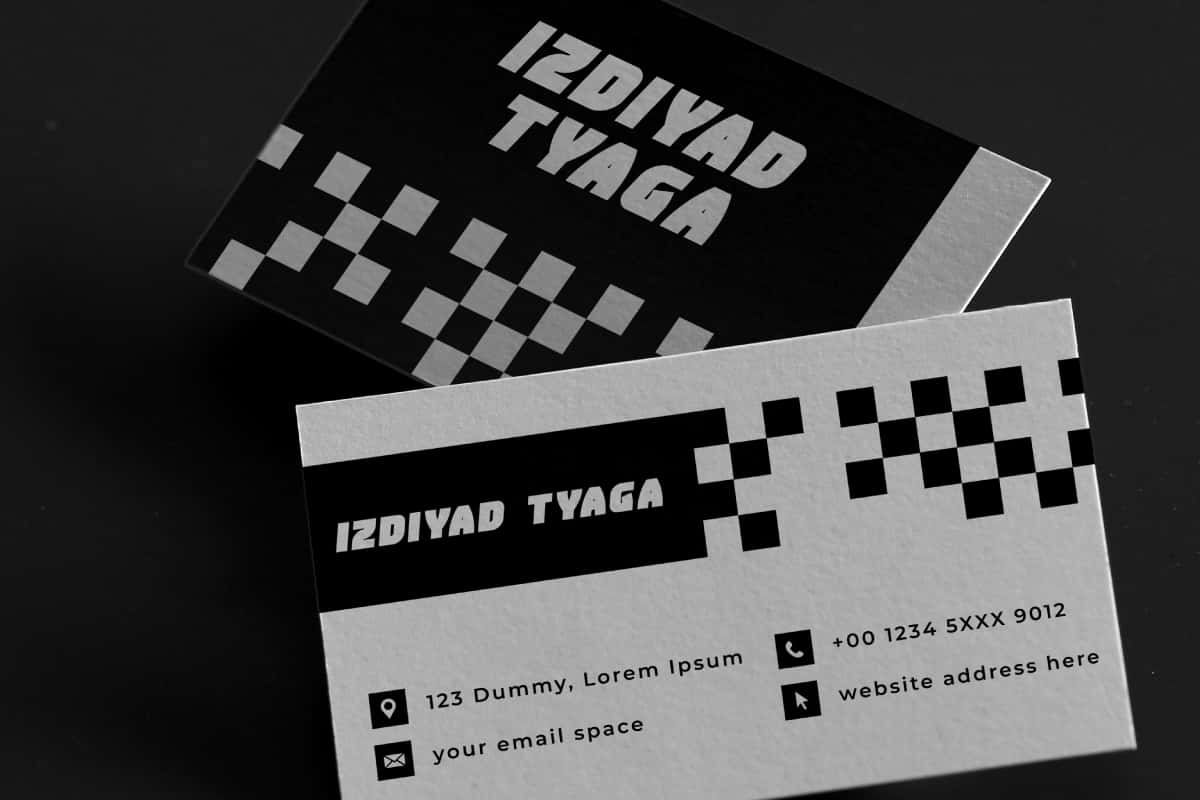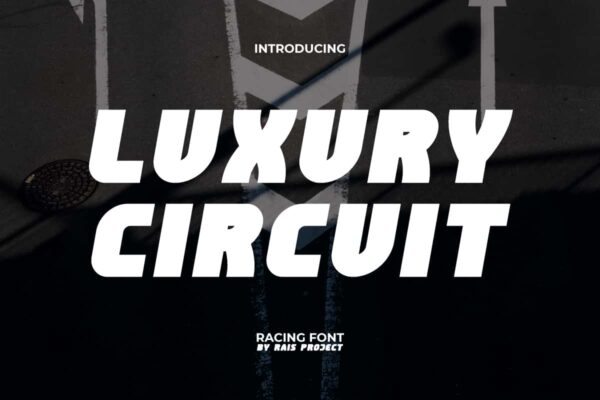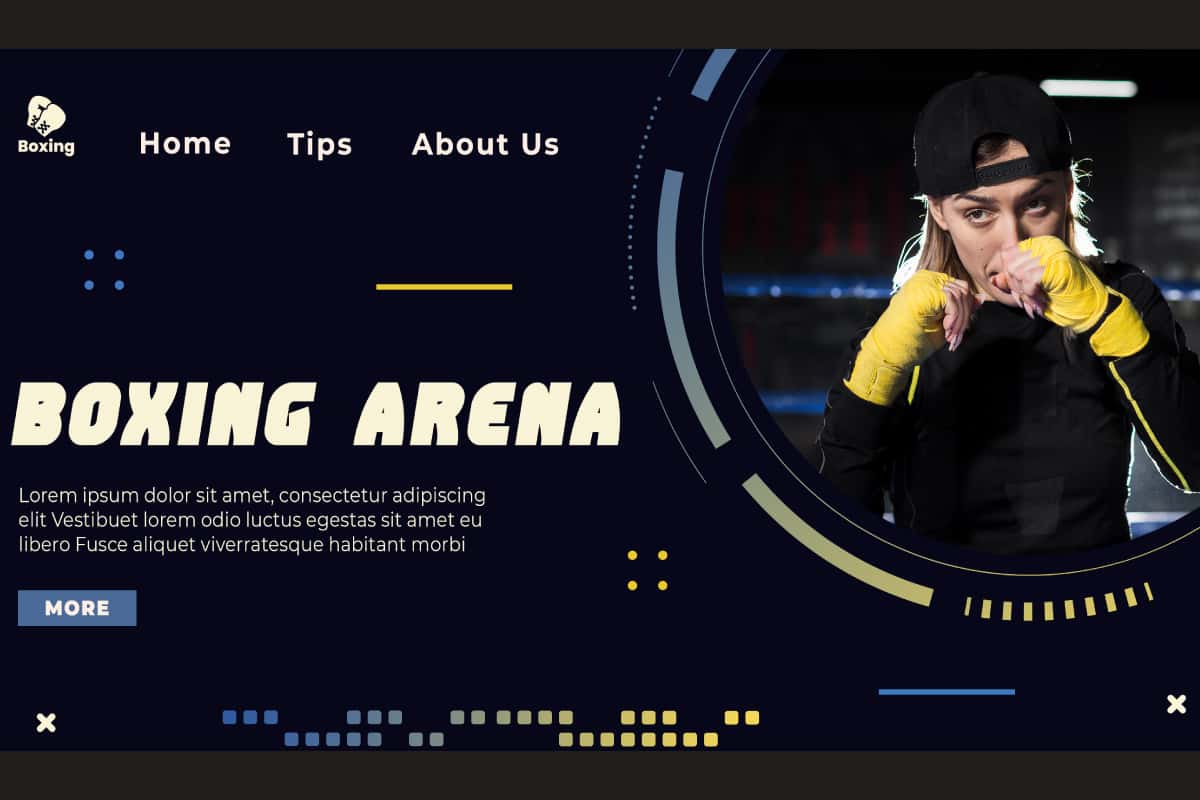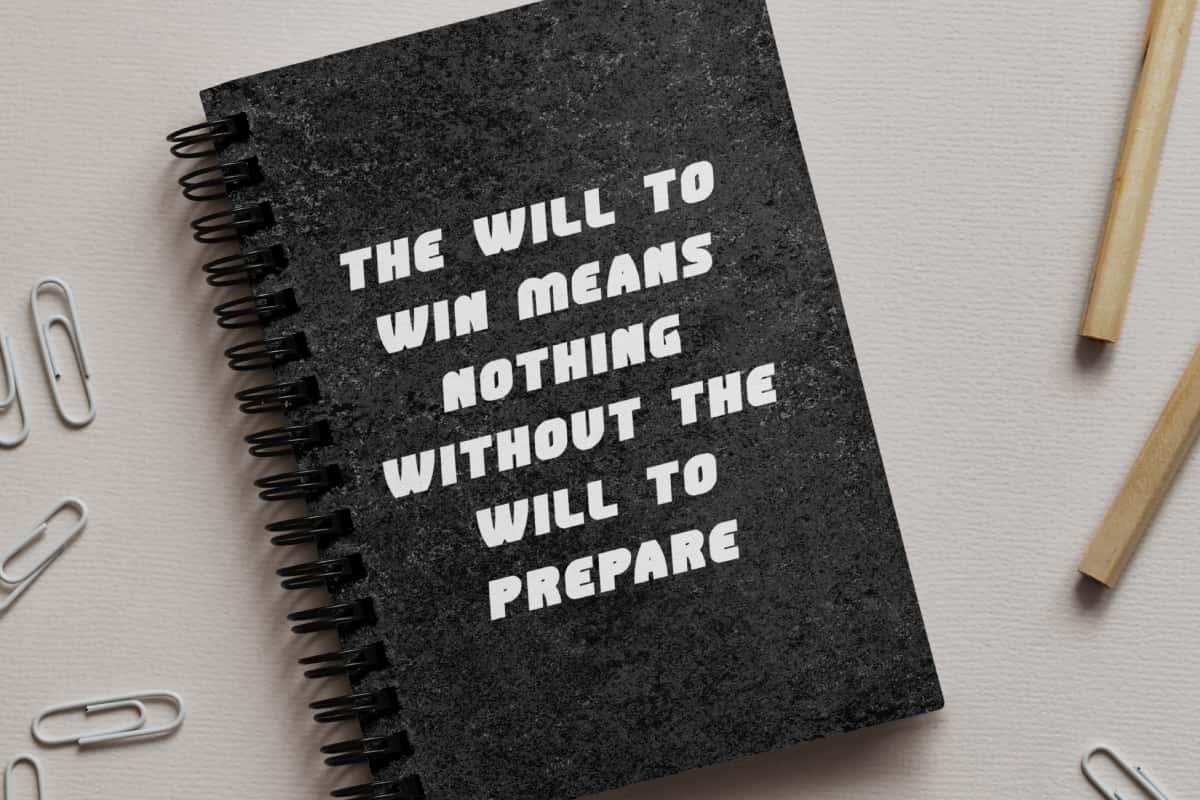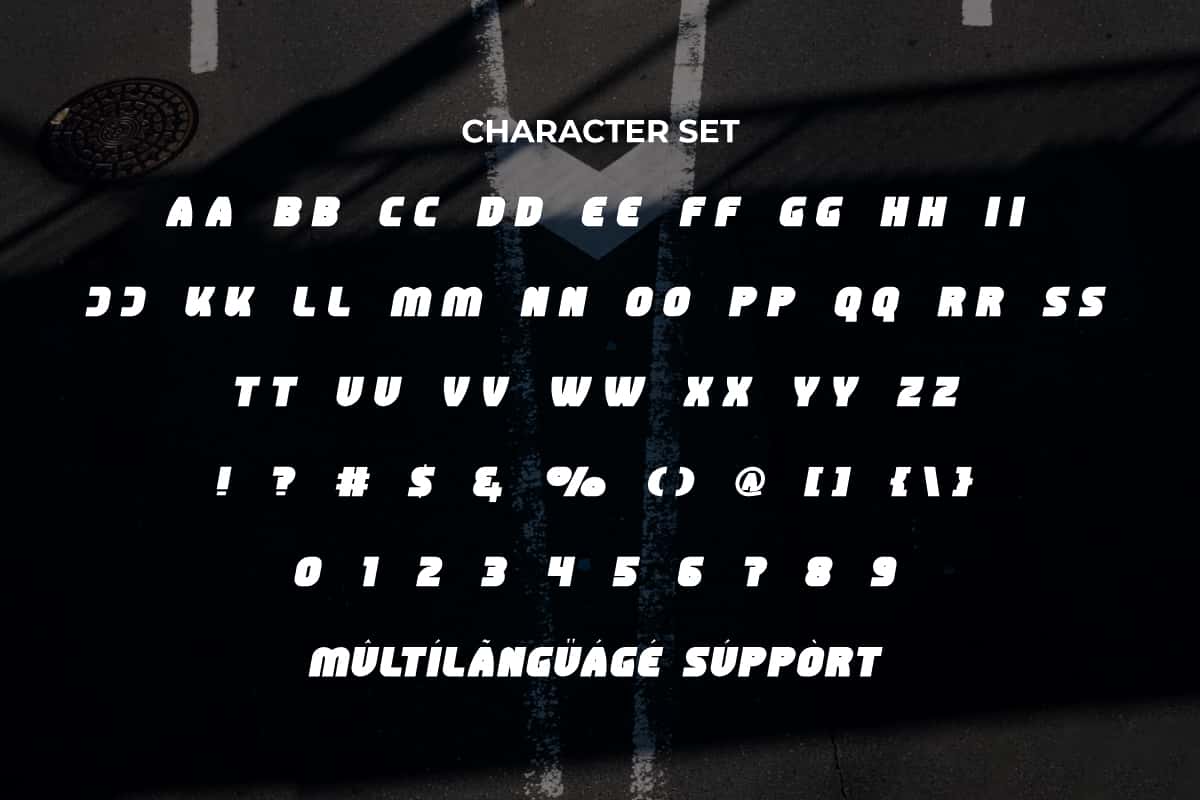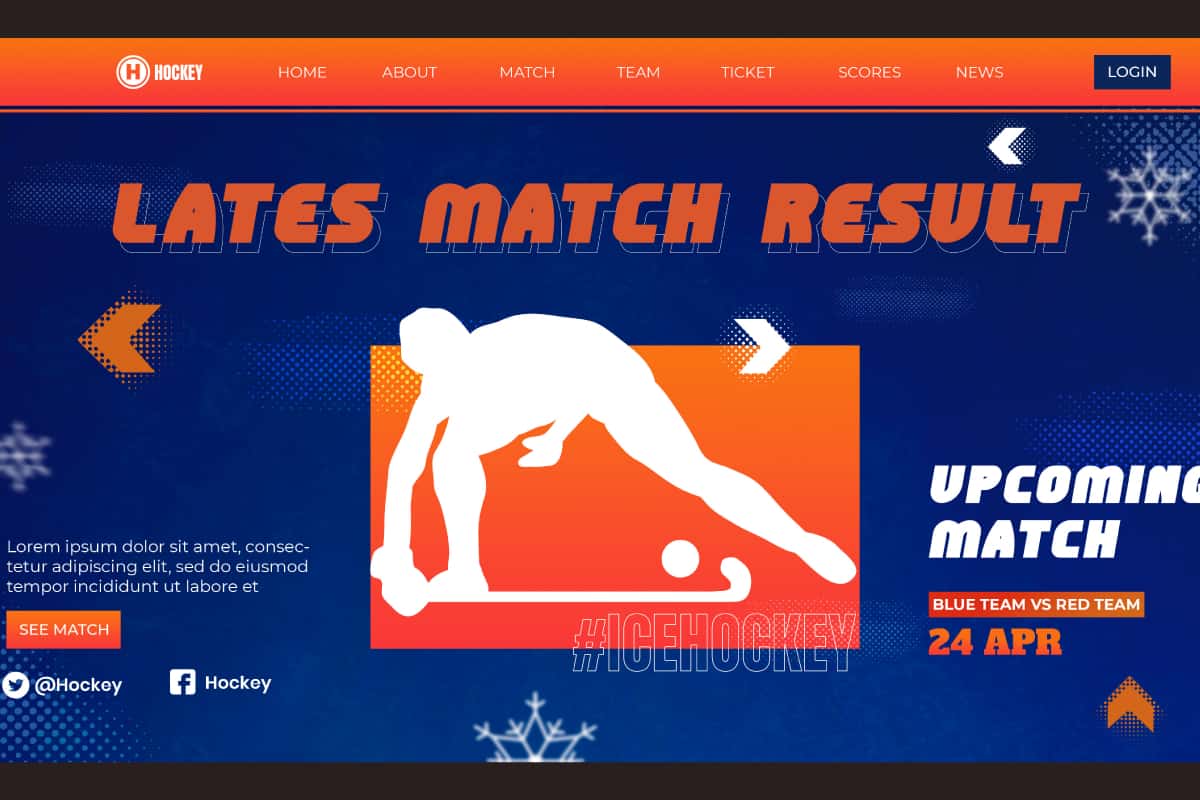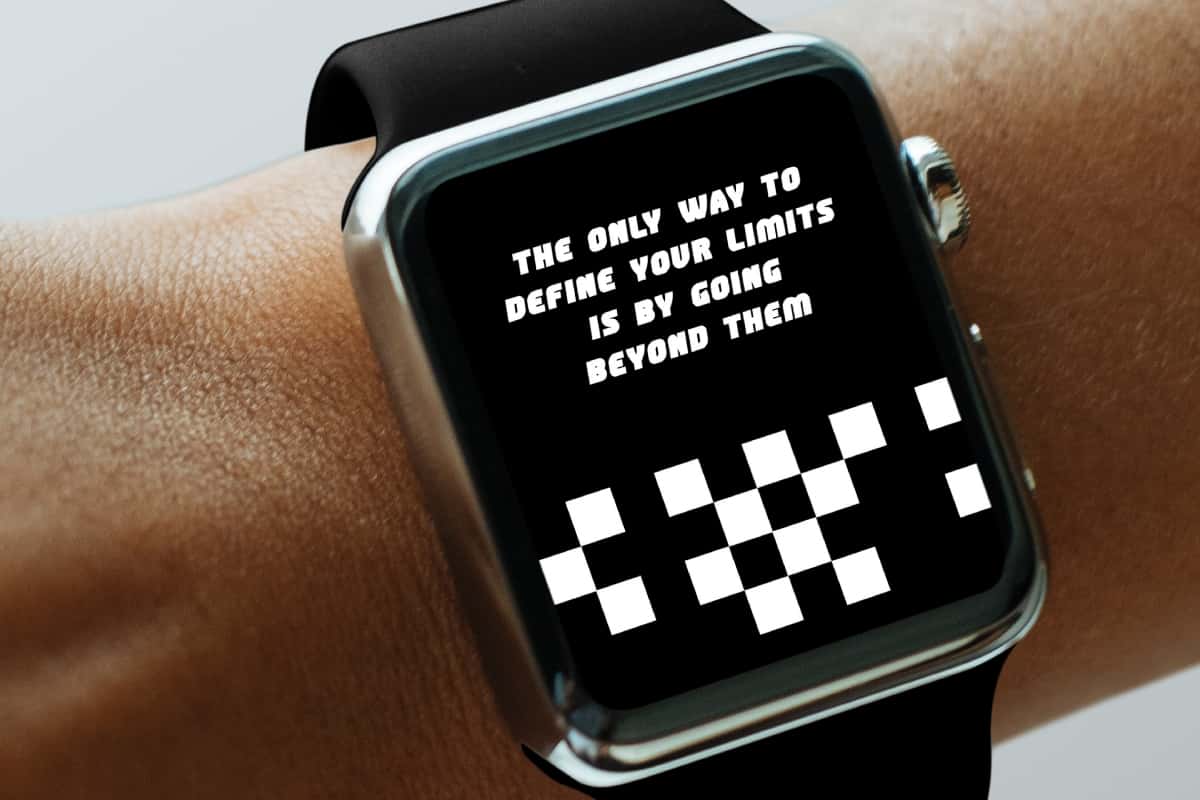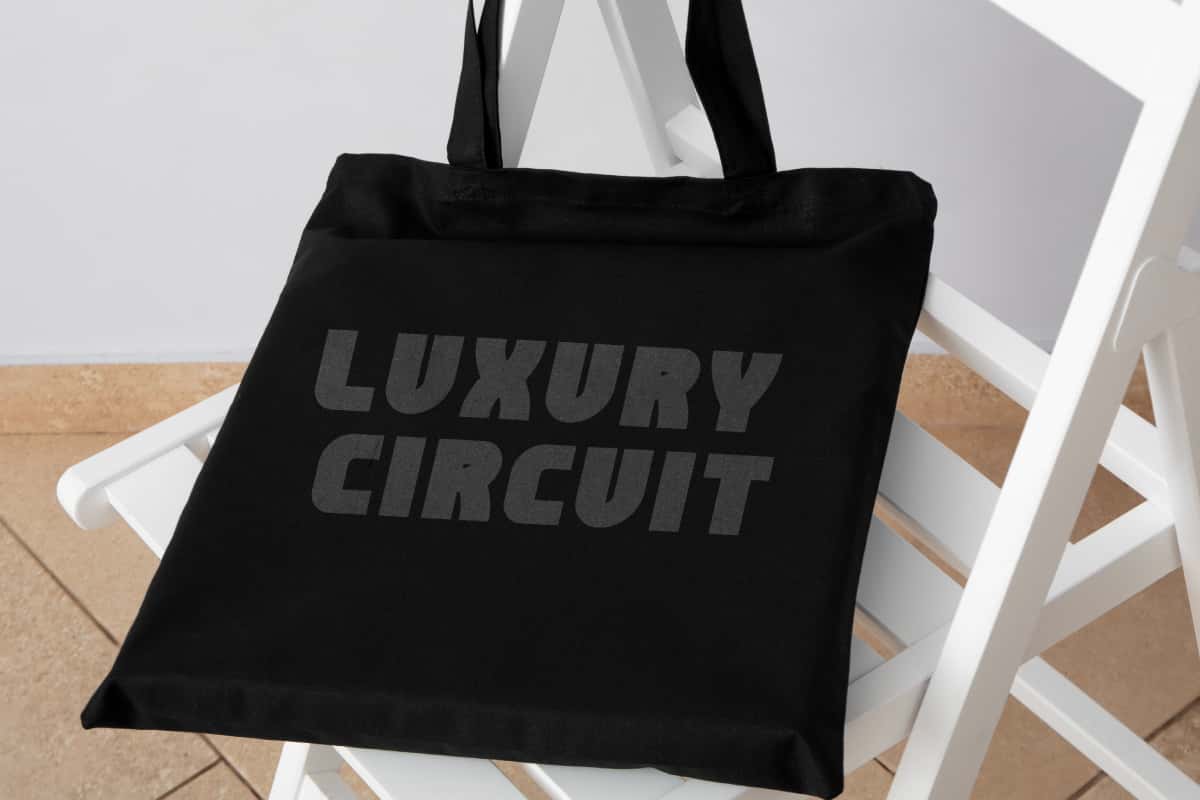
Luxury Circuit Font
Luxury Circuit Font is a simple yet bold style font with a playful unique concept to make your design look more trendy!
Luxury Circuit Font is a simple yet bold style font with a playful unique concept that can convey an impressive fun and playful looks. This font has bold characters wrapped in a cool sports theme. It will be great for poster, label, signage, stationery, custom design, product packaging, quotes, brand image, advertisement, invitation, marketing material, website page, and more!
Luxury Circuit Font includes a full set of ALL CAPS for Uppercase and Lowercase Letters, Numerals, and large range of Punctuation. This modern font will be suitable for various industries, such as sports, automotive, fashion, game, barber shop, cafe, event or festival, photography, printing, publishing, etc.